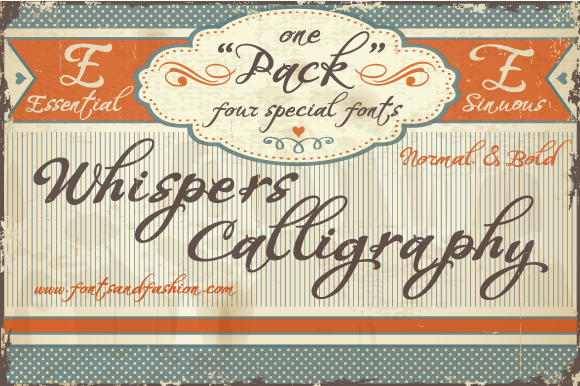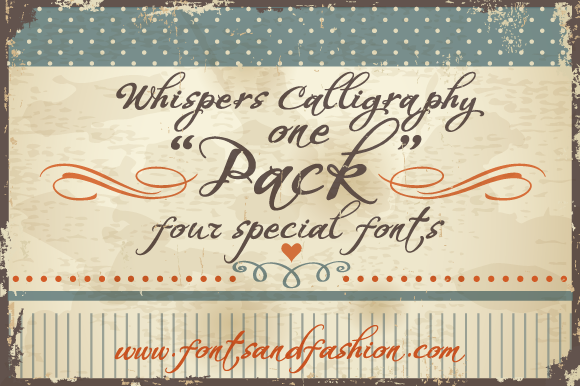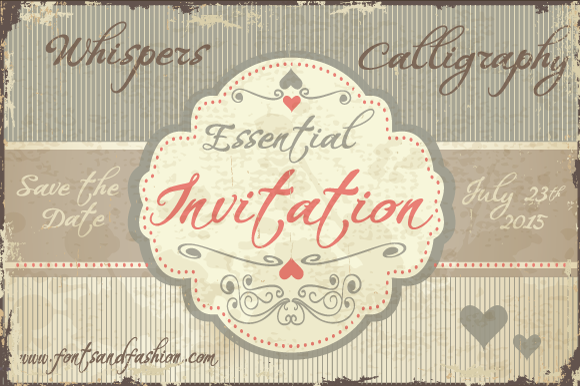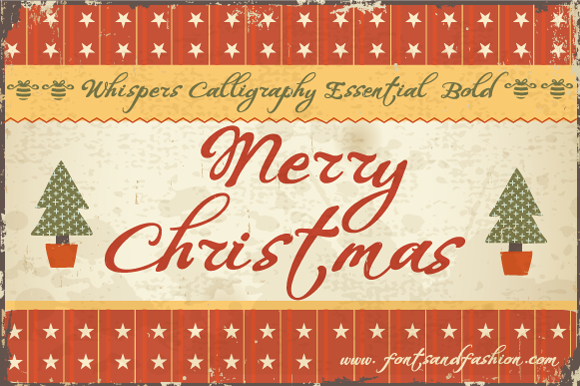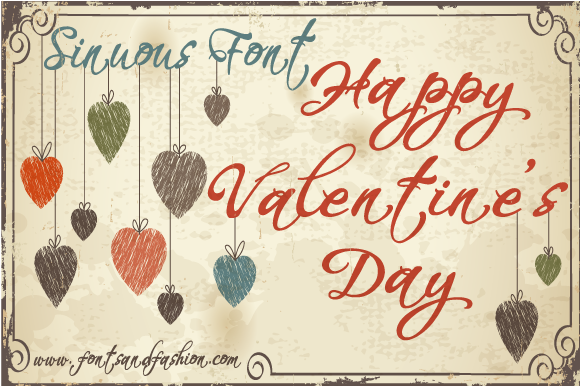
About Whispers Calligraphy Font
Whispers Calligraphy is a flowing handwritten font, described by an elegant touch, perfect for your favorite projects. Fall in love with its incredibly distinct and timeless style and use it to create spectacular designs!